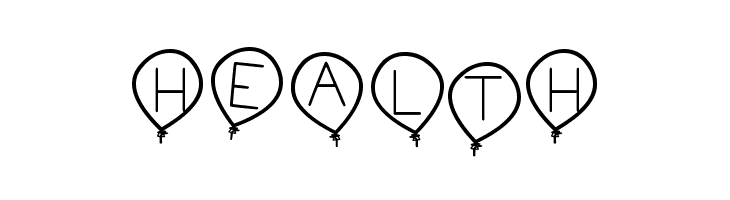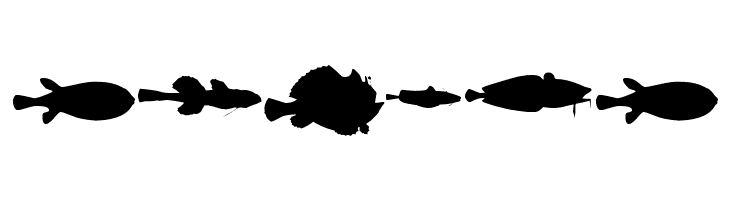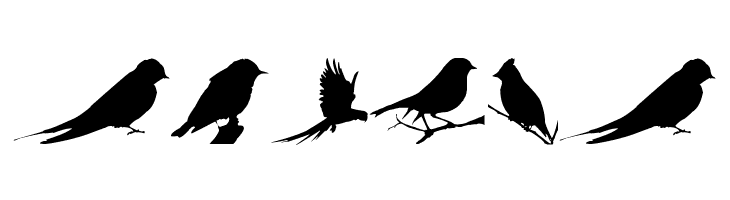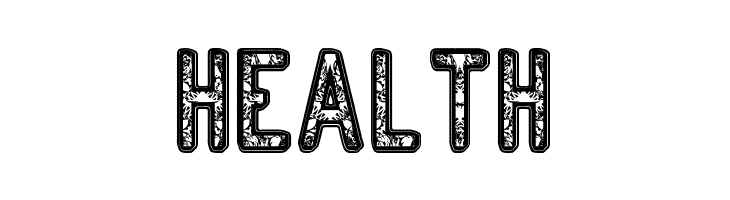
A playful font with letters inside balloon shapes, perfect for festive occasions.
A playful and decorative icon set of alien heads and UFO symbols.
A whimsical font using fish silhouettes to represent characters, ideal for aquatic-themed projects.
Bird silhouettes used as glyphs for each character.
A bold, 3D font with a playful, comic book style.
A whimsical set of alien-themed icon characters with playful designs.
A dot matrix font with a digital, retro aesthetic.
A bold, decorative font with intricate geometric patterns and a gothic influence.
A bold, decorative font with a distressed, vintage texture.
A display font composed of iconic beverage and beer brand logo designs.